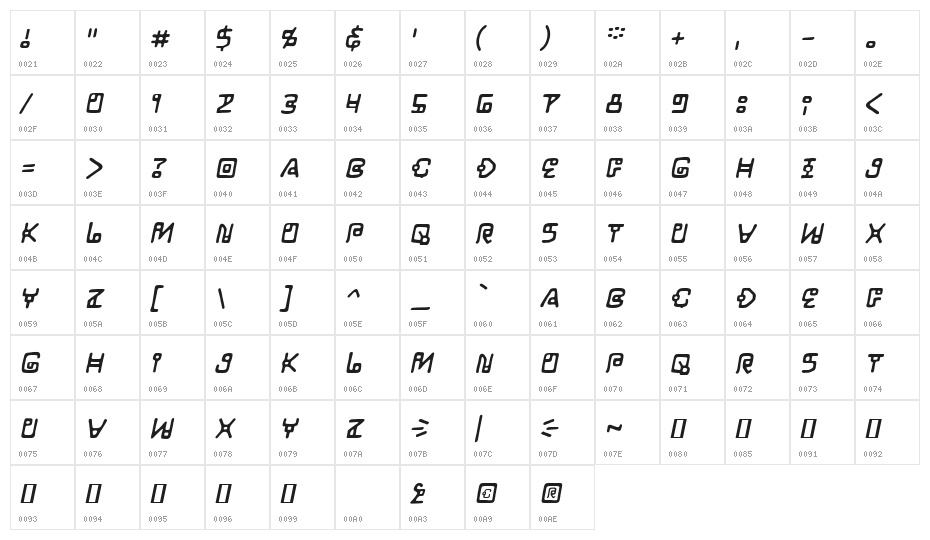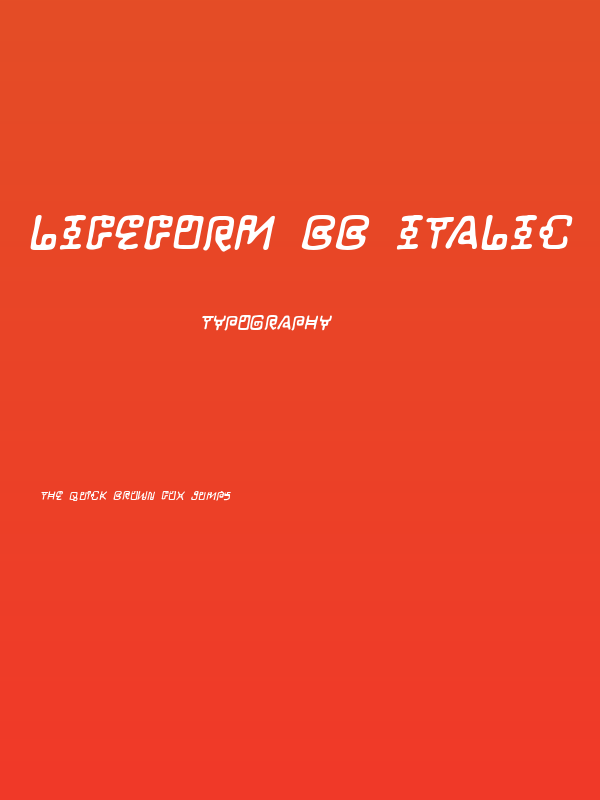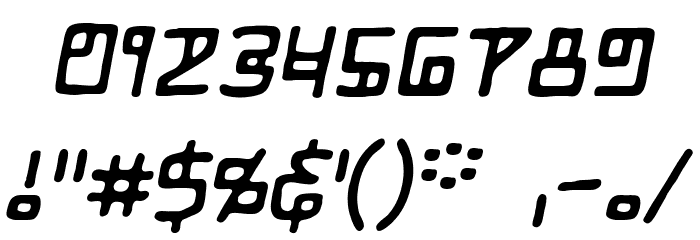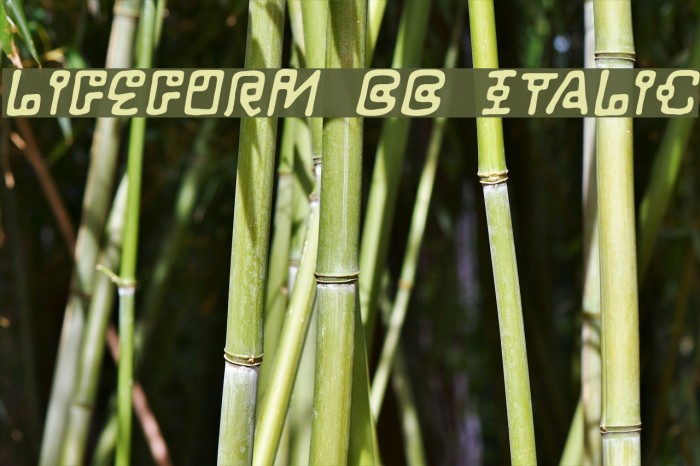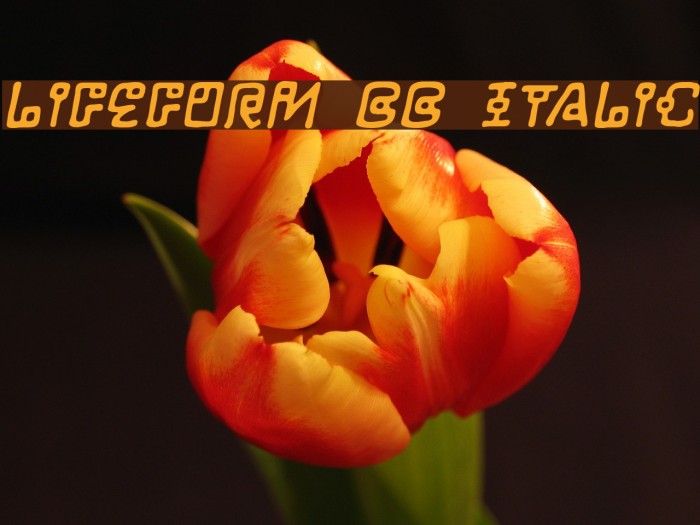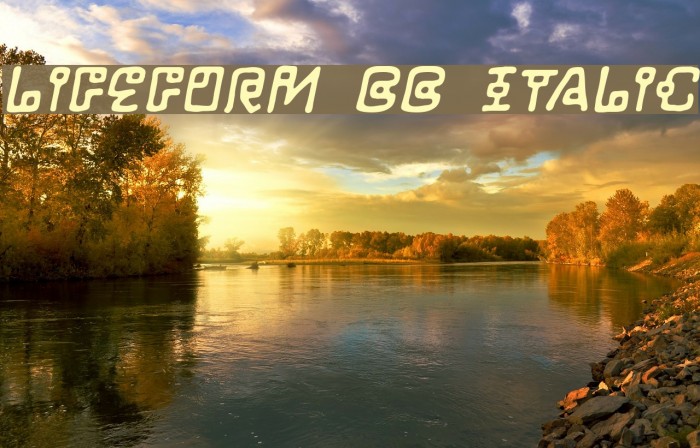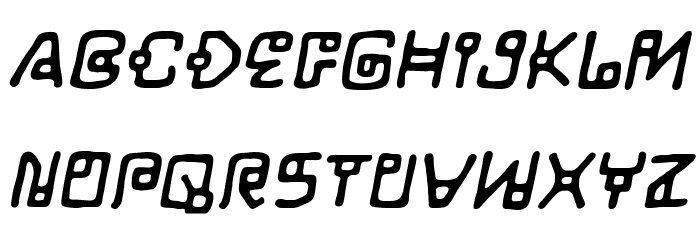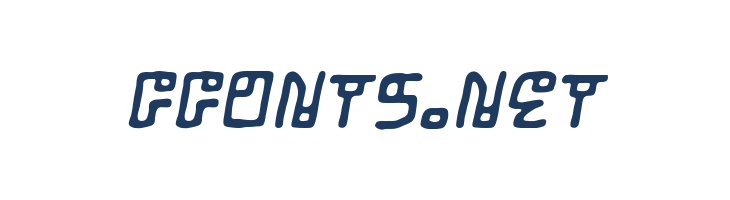
LifeForm BB Italic Font
This font features a futuristic and bold design with a unique, rounded style that gives it a distinctive appearance. The characters are slightly italicized, adding a dynamic and forward-leaning effect. The strokes are thick and consistent, providing a strong visual impact. The font's geometric shapes and smooth curves create a modern and sleek look, making it ideal for projects that require a contemporary and innovative feel. The numbers and special characters maintain the same stylistic elements, ensuring uniformity across all text elements.
| Proposed Projects | Ideal for sci-fi themed designs, technology branding, video game titles, and modern advertising. |